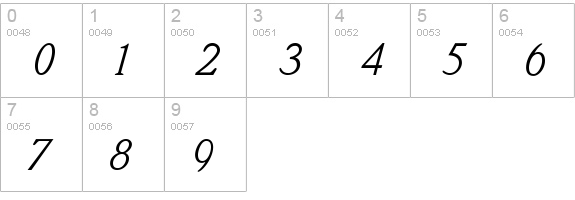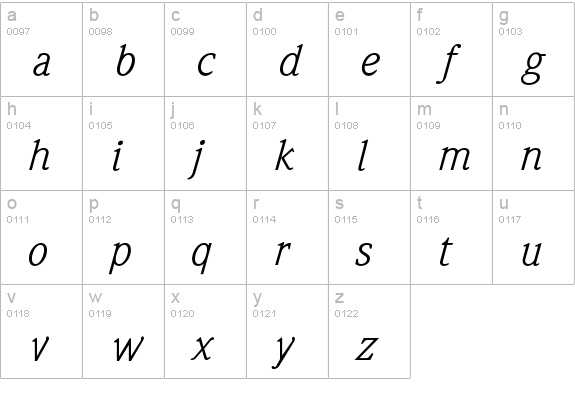
WeidemannBookItalic Font Details
WeidemannBookItalic is a stunningly elegant font that exudes sophistication and refinement. With its delicate and flowing italic design, this font adds a touch of grace to any project it graces. The WeidemannBookItalic font is perfect for those looking to add a touch of classic beauty to their designs. Its slim and stylish letterforms are beautifully crafted, capturing the essence of timeless elegance. Whether used in headings, titles, or body text, this font is sure to make a lasting impression. Not only is WeidemannBookItalic visually captivating, but it is also incredibly versatile. It effortlessly complements both modern and traditional design styles, making it a go-to choice for designers across various industries. And the best part? WeidemannBookItalic is available for free to download at FontsMarket.com. This means that you can easily access and utilize this stunning font in your projects without any cost. So, whether you're working on a branding project, a website design, or a printed publication, WeidemannBookItalic is the perfect font to elevate your work to new heights of elegance and sophistication. Don't miss out on this incredible opportunity to enhance your designs with this beautiful typeface. Download WeidemannBookItalic for free at FontsMarket.com today.